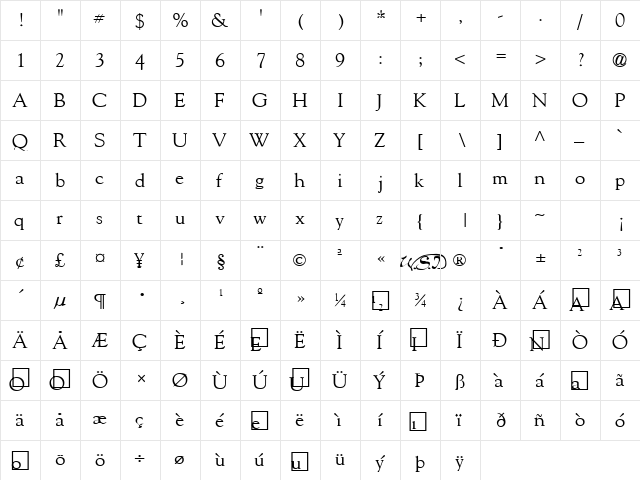
Roberta Regular
Design Context for Roberta Typeface
Roberta offers clean, dependable letterforms without strong stylistic allegiance, making it a practical choice for designers who need flexibility.